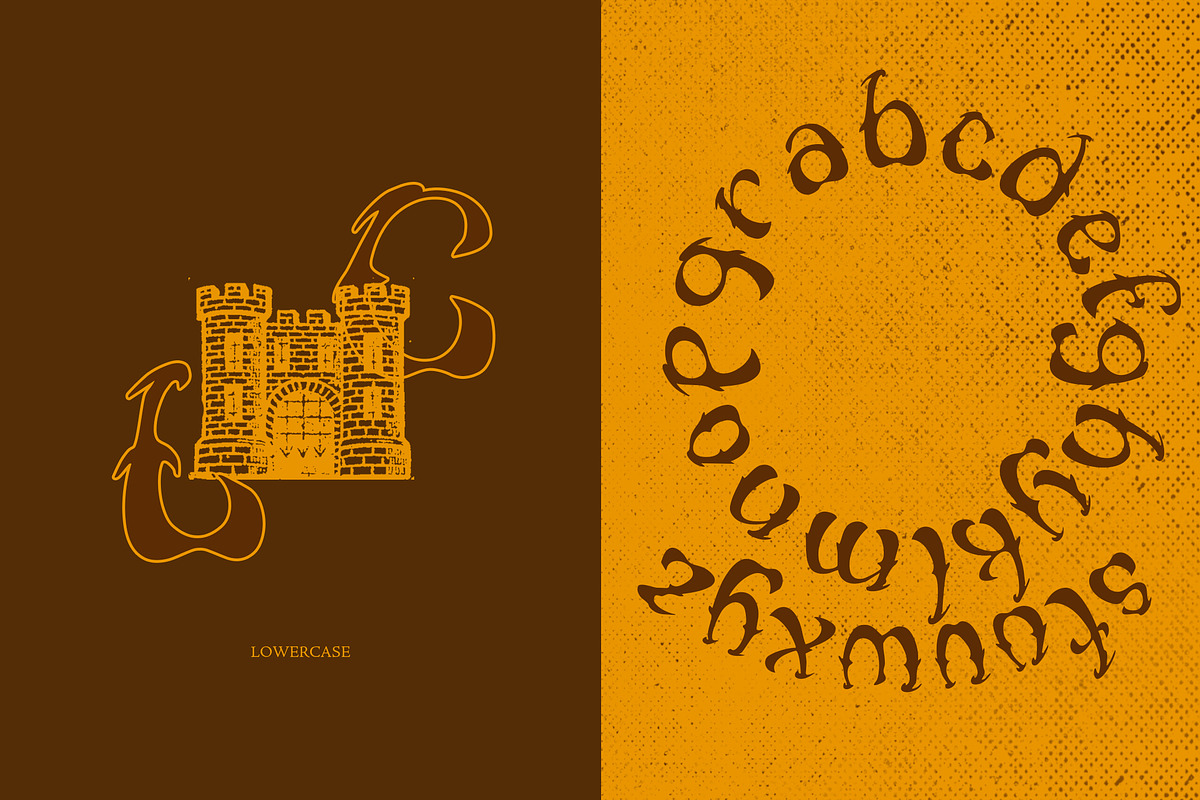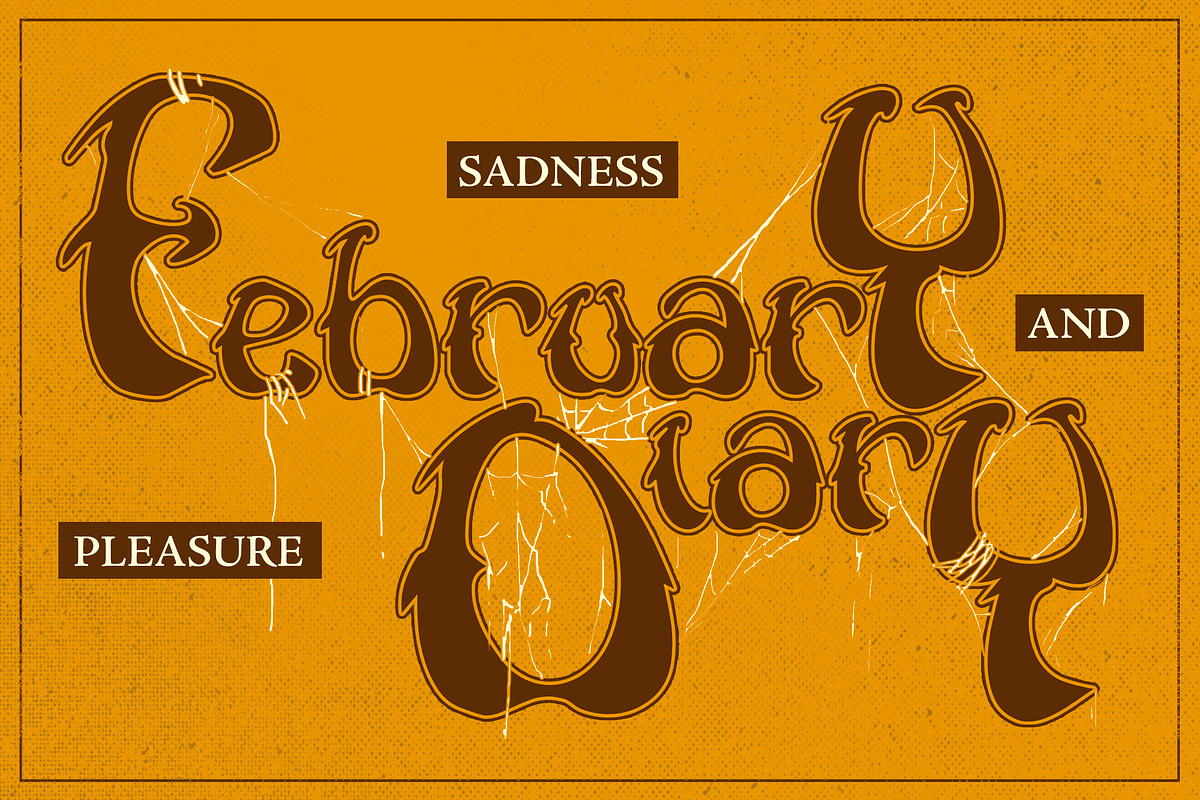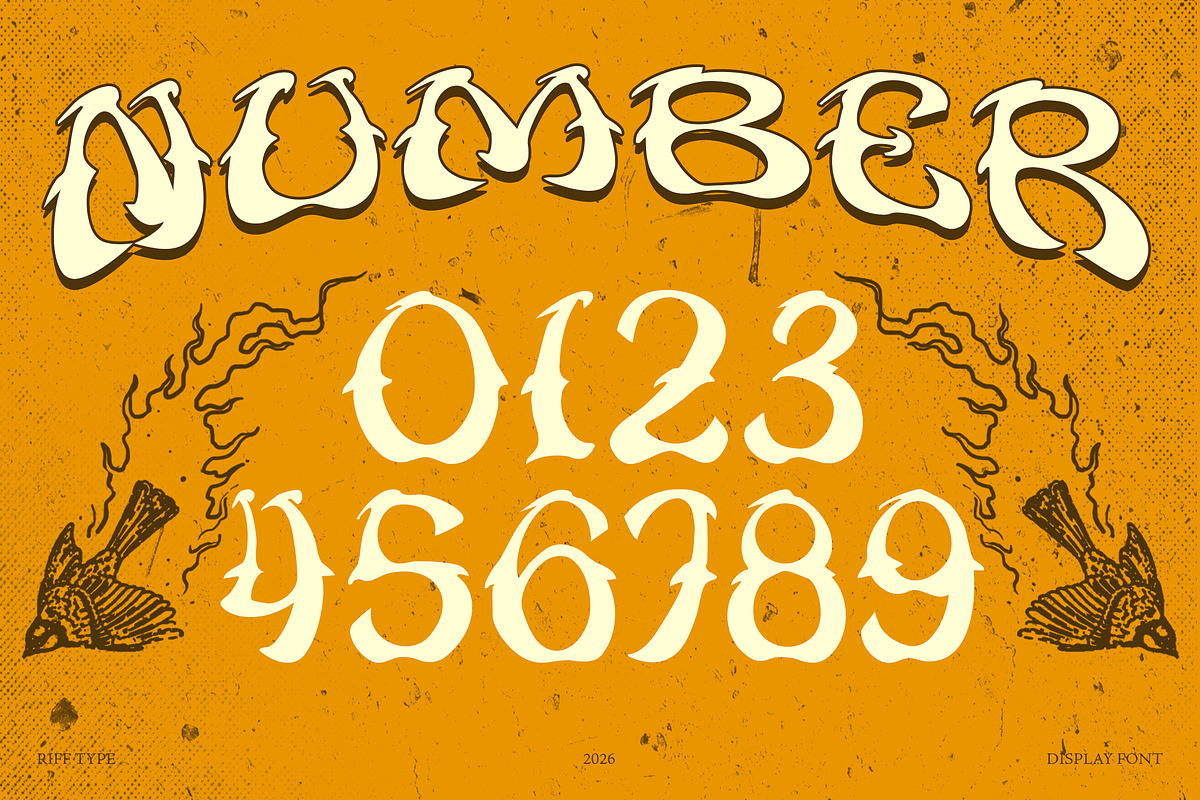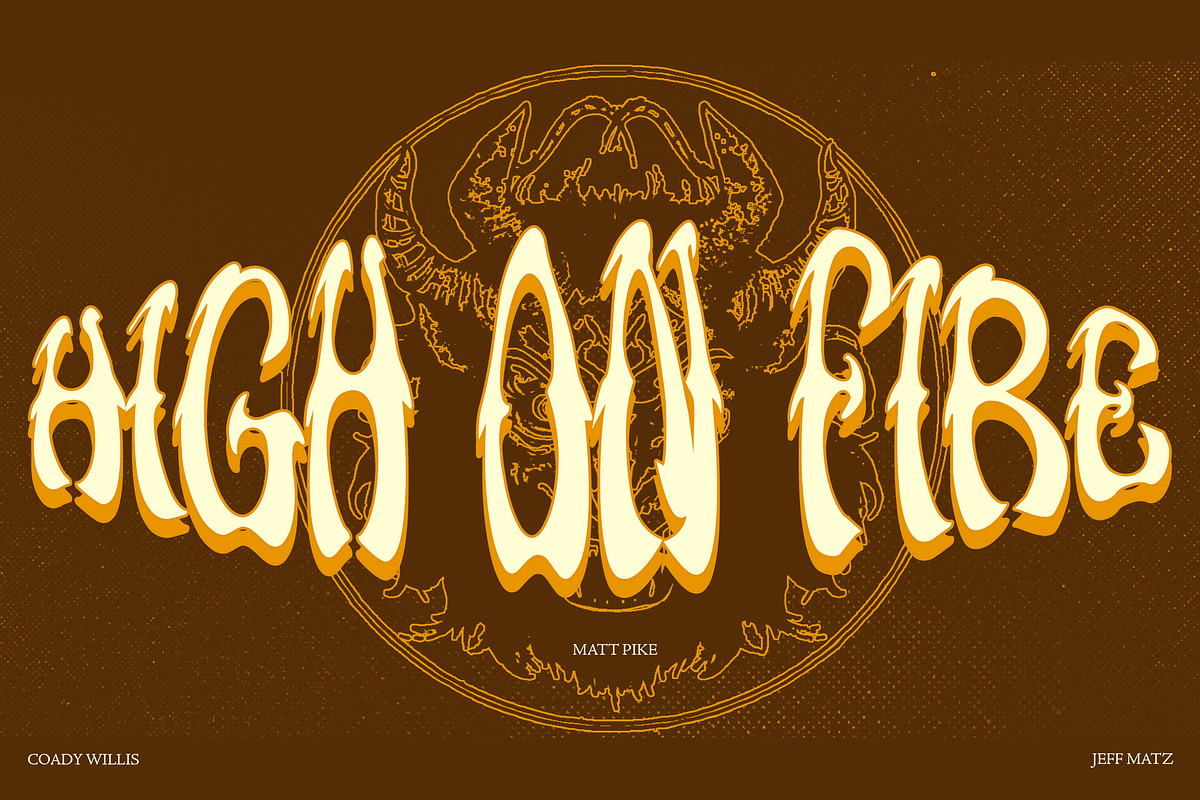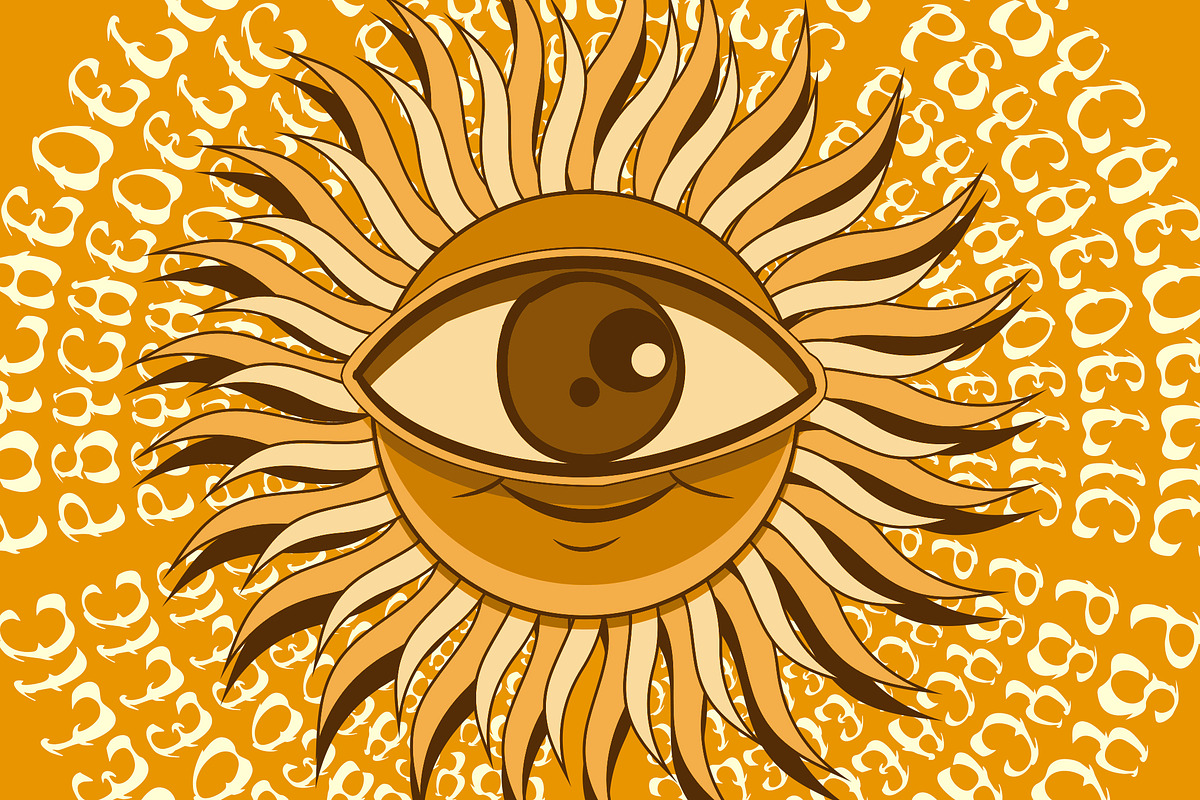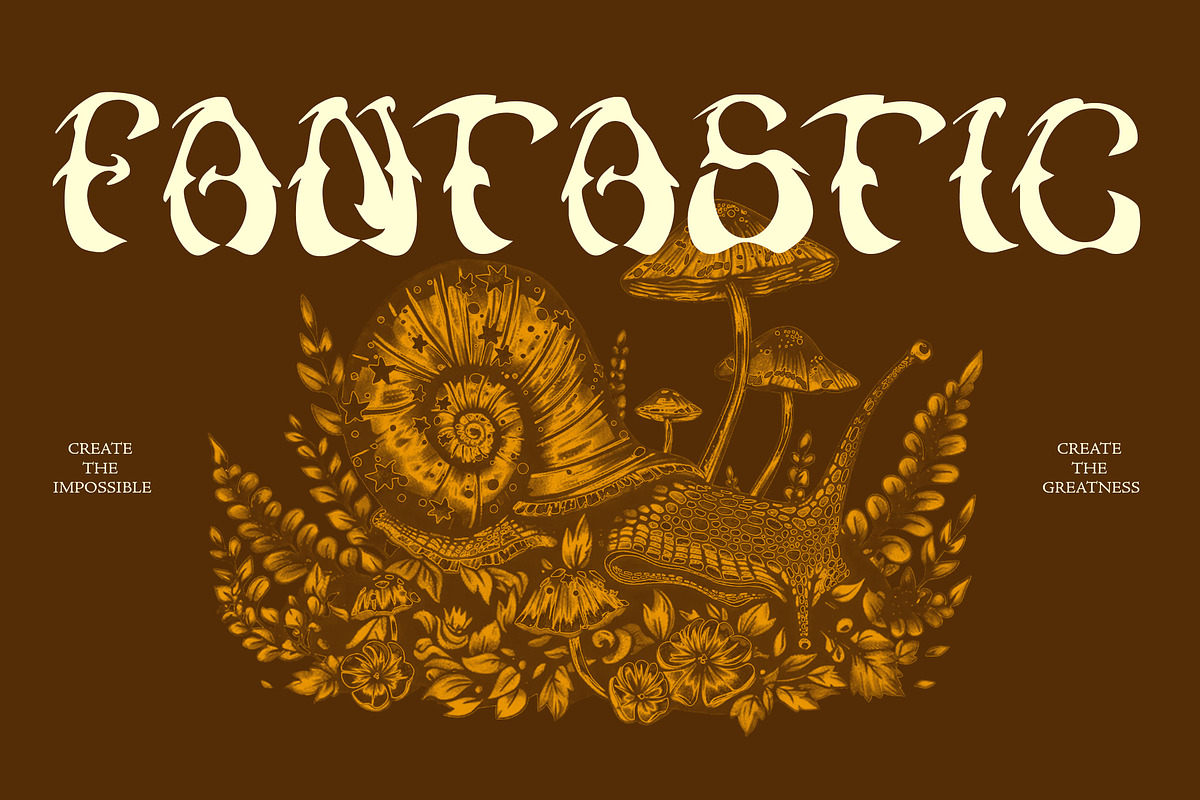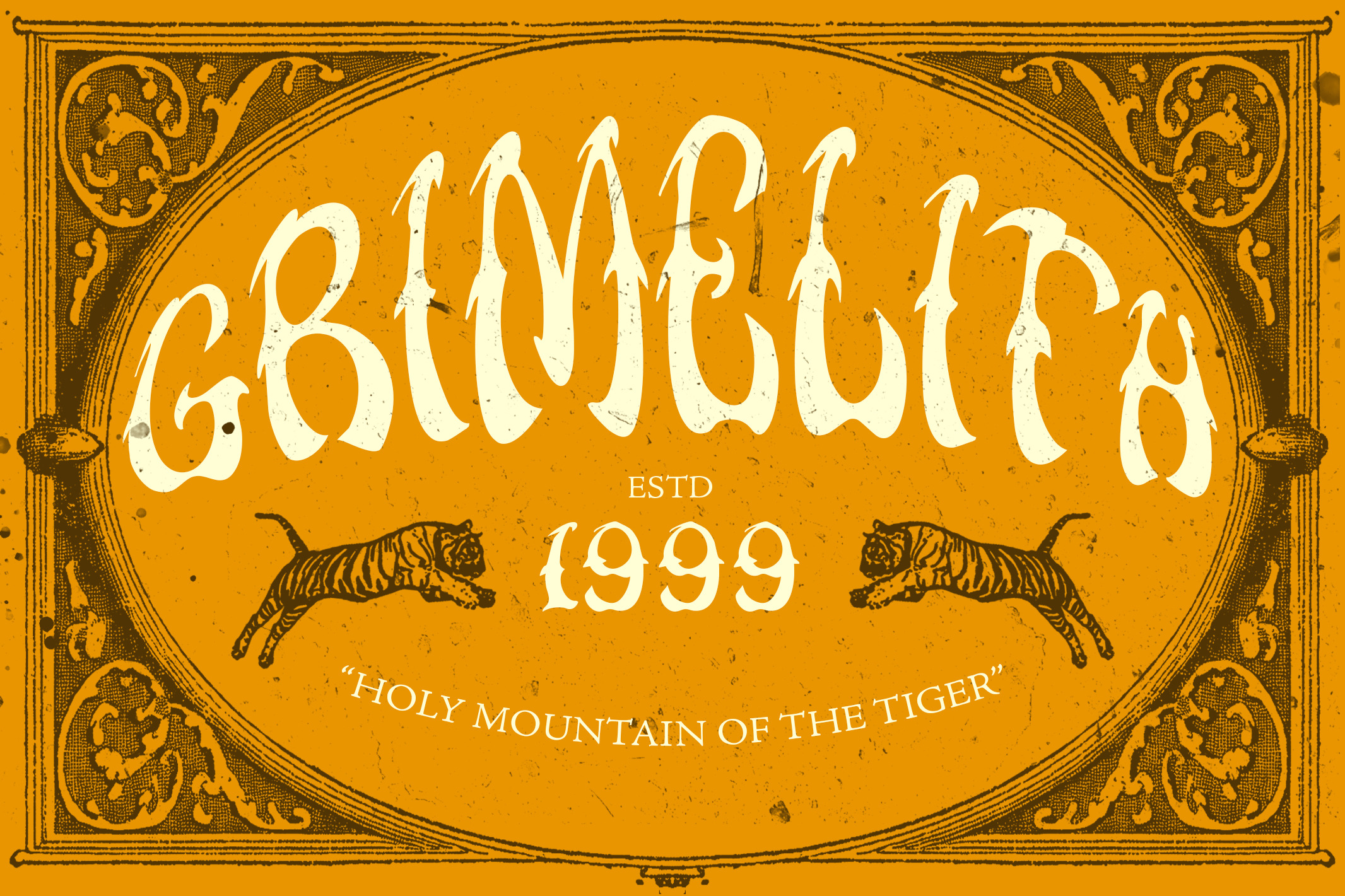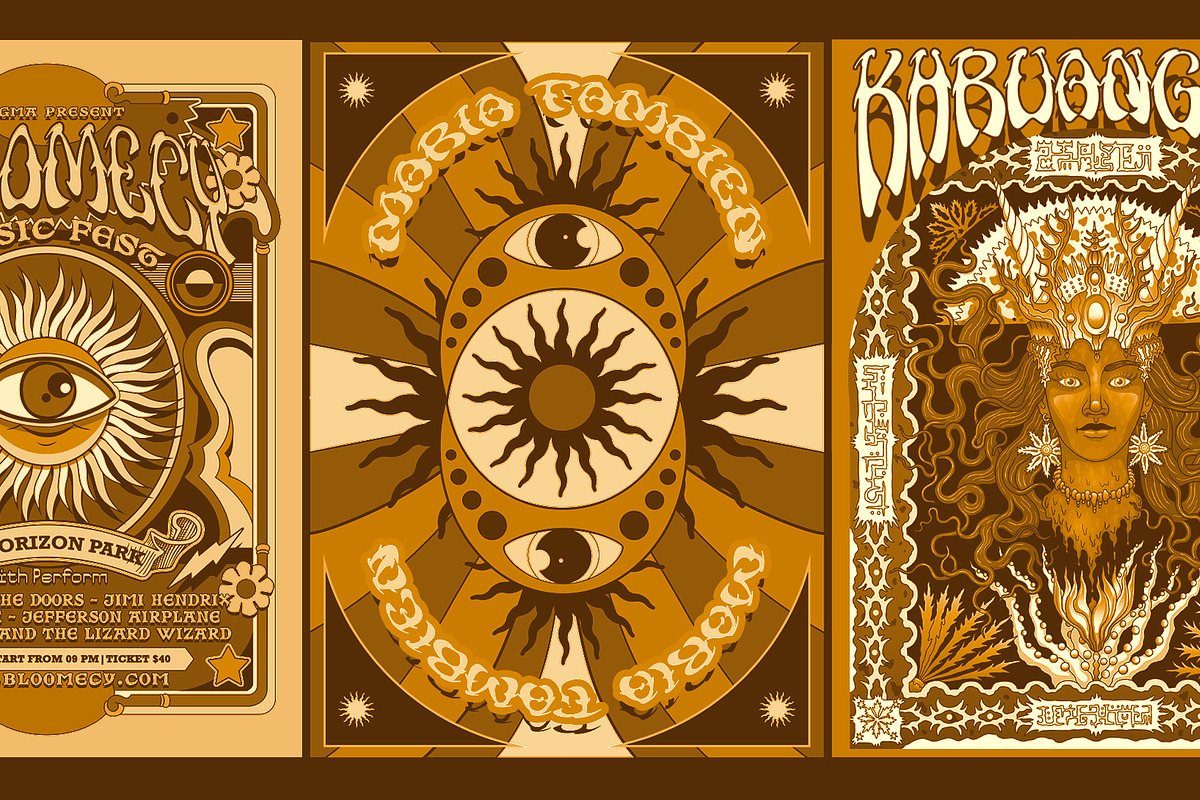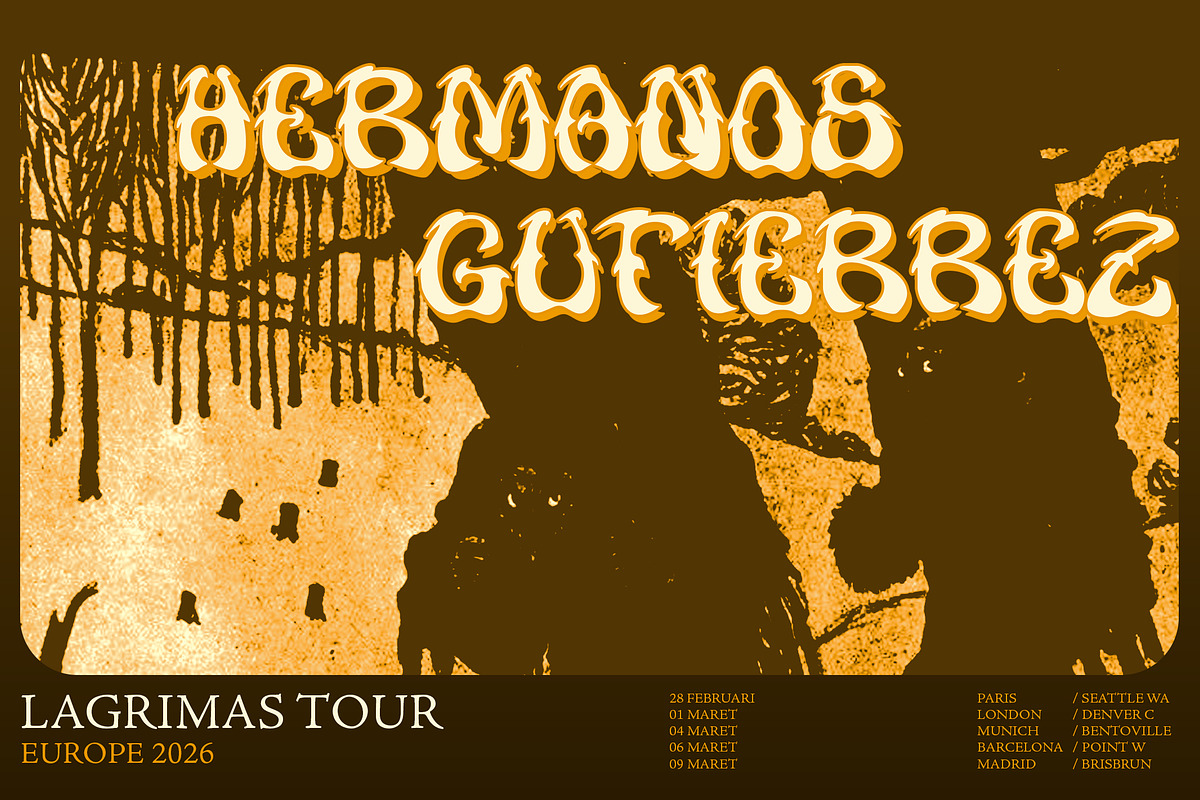
Grimelith - Psychedelic Whimsy Font
With its flowing, curvy letterforms and eye catching psychedelic vibe, Grimelith is perfect for posters, album covers, merchandise, and creative branding projects.
Add a touch of whimsy and mind-bending style to your designs and make them stand out with this one of a kind typeface.